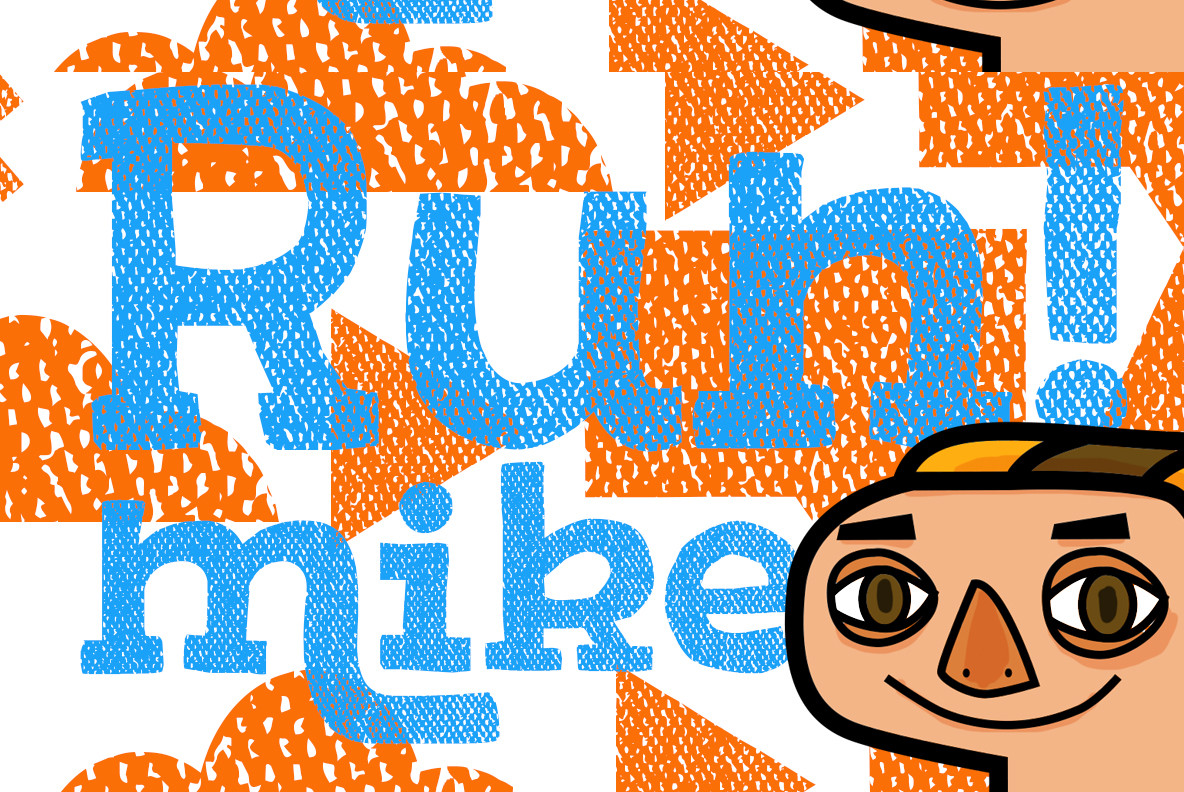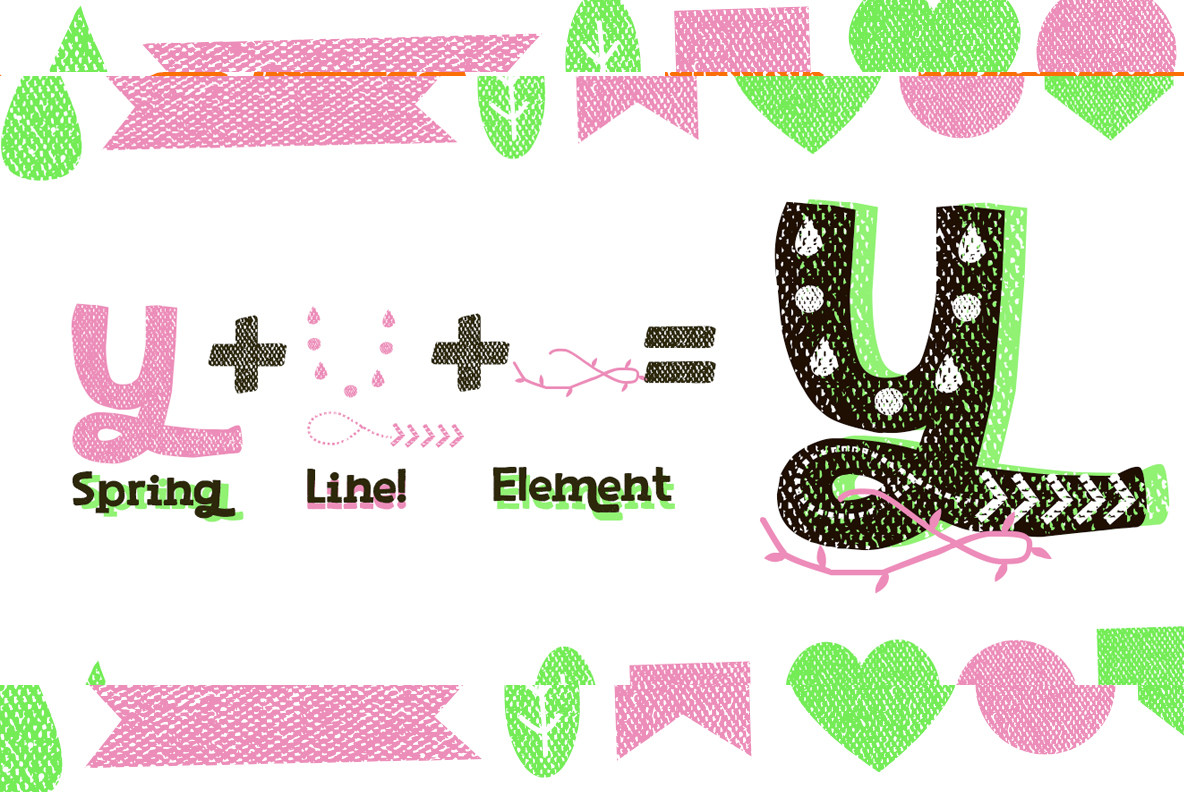
Marty Spring Font
Marty Spring
Marty Spring Dingbat
Marty Spring Element
Marty Spring Line
Marty Spring Words
Variants of Marty, to generate many more entertaining titles, playing with shapes, lines, also contains the Cyrillic alphabet.